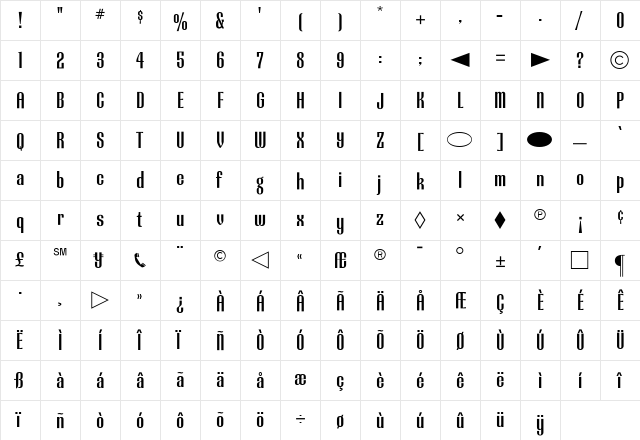
CgRadiantBdExCd Medium Font Preview
CgRadiantBdExCd Medium
Design Context for CgRadiantBdExCd Typeface
CgRadiantBdExCd is a composed and adaptable typeface that performs quietly and consistently across a wide range of design contexts.